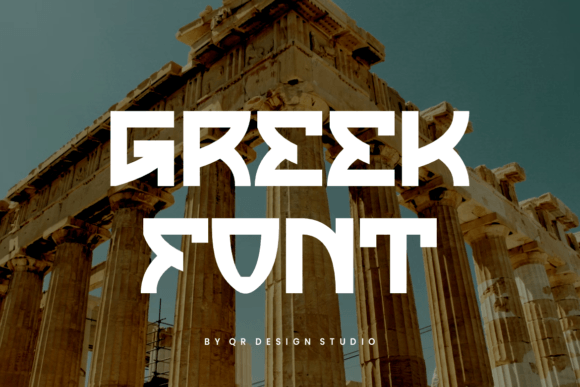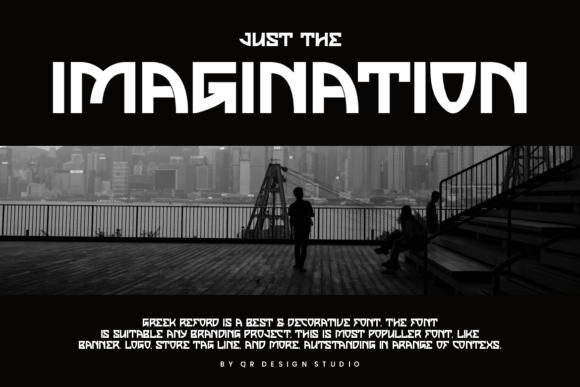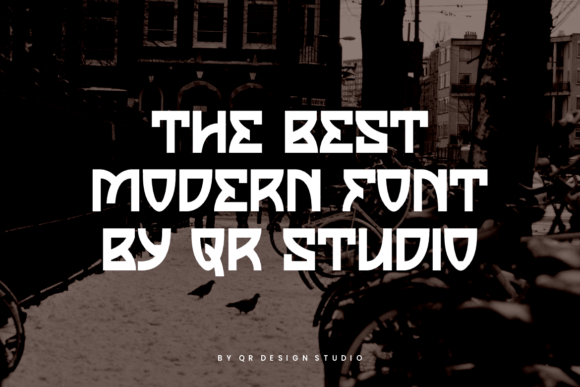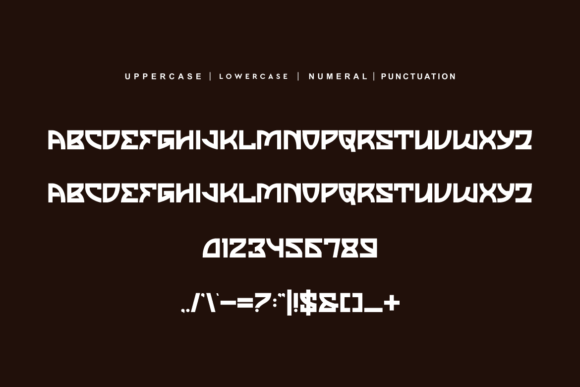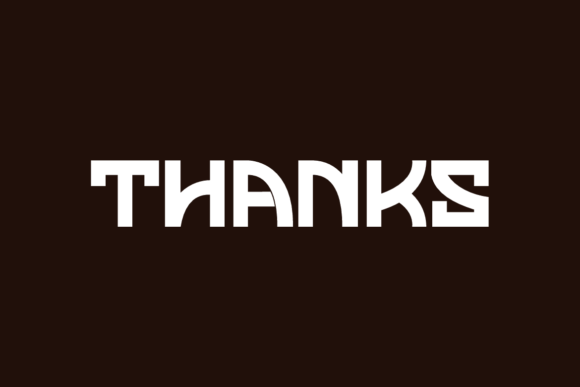
Introduction to Greek Reford Font
Greek Reford Font is a bold and authentic display font.
The font is suitable for any branding project like logo, sport, and many more Outstanding in a wide range of contexts.